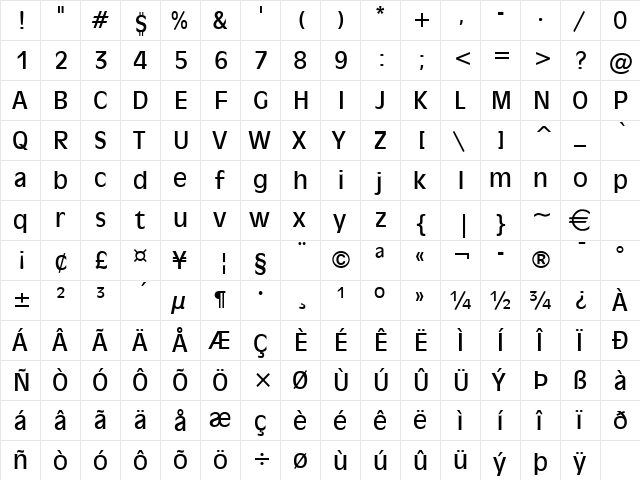
Antiqua101 Normal
Design Context for Antiqua101 Typeface
Antiqua101 takes a measured approach to typography — its balanced proportions and neutral character make it a reliable workhorse for both digital and print work.
Pro Tip: Use Antiqua101 in both headline and body roles to test its range before committing to a single application.